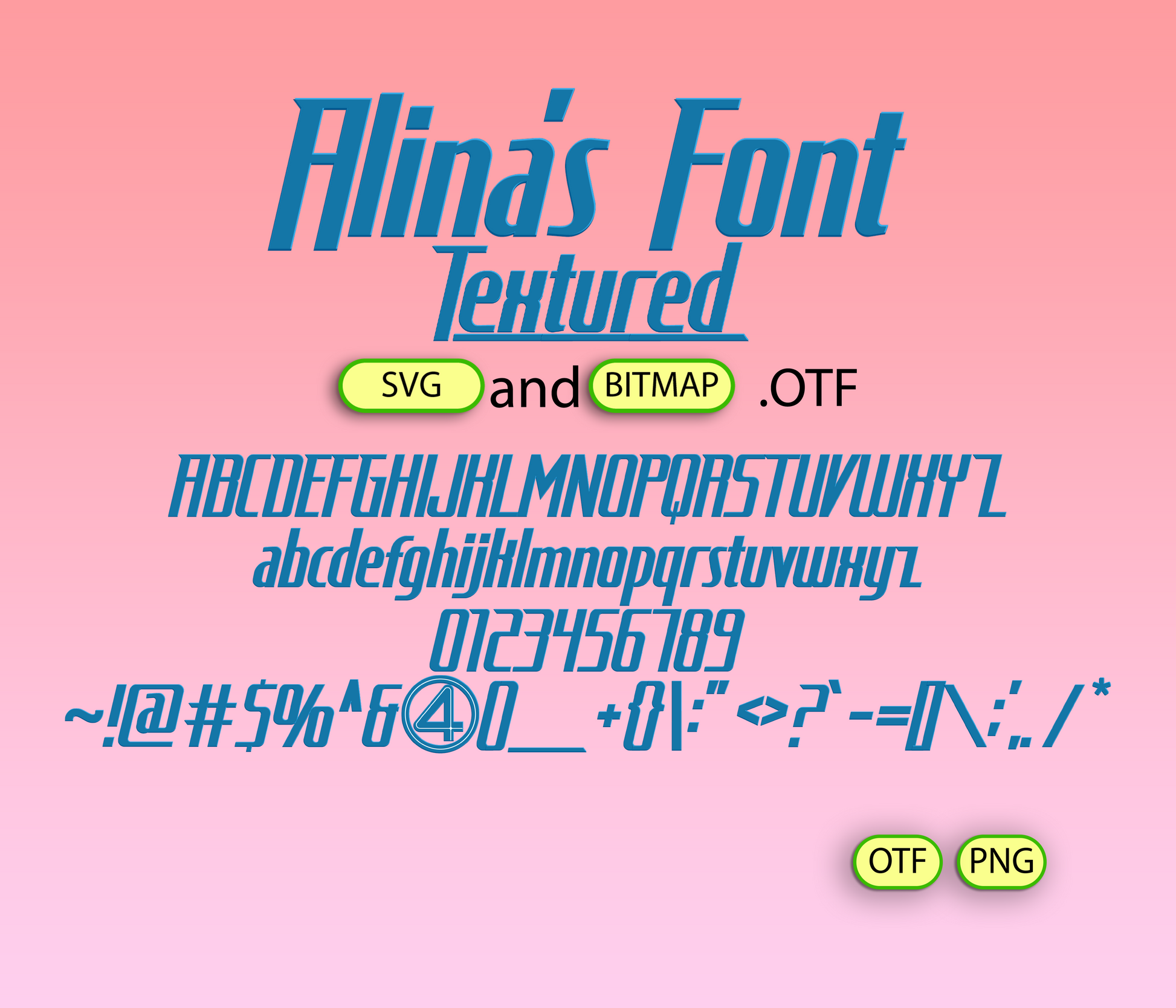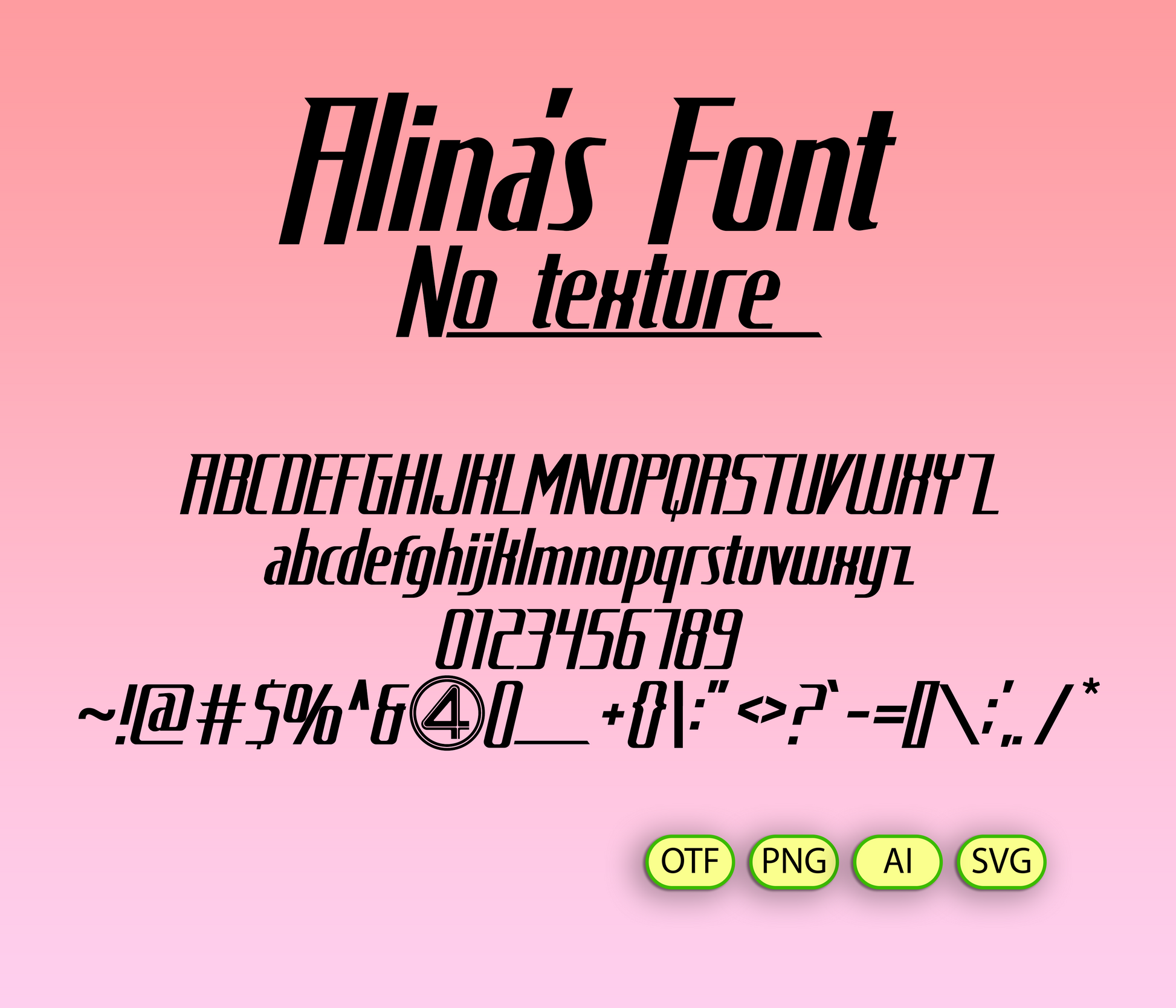
Extraordinary Cosmic Team Font Textured
Step into the remarkable universe of space exploration with our Extraordinary Cosmic Team font, capturing the essence of a famous superhero quartet. Perfect for enthusiasts, comic artists, event planners, and creators, this font brings the scientific, power-infused spirit of four legendary heroes to your projects. Create gathering invitations, themed products, or digital artwork with the adventurous energy of this iconic team's journeys.
Our Extraordinary Cosmic Team font showcases strong, scientific elements and heroic characters reflecting the exceptional abilities of these space-exploring champions. Ideal for:
Our font honors the celebrated team, enhancing your designs with its innovative and courageous character. Whether developing promotional content, designing merchandise, or adding a vibrant element to personal projects, this font expresses the bold nature of these heroes. Ready to bring cosmic adventure into your designs? This font is your pathway to captivating, striking creation.